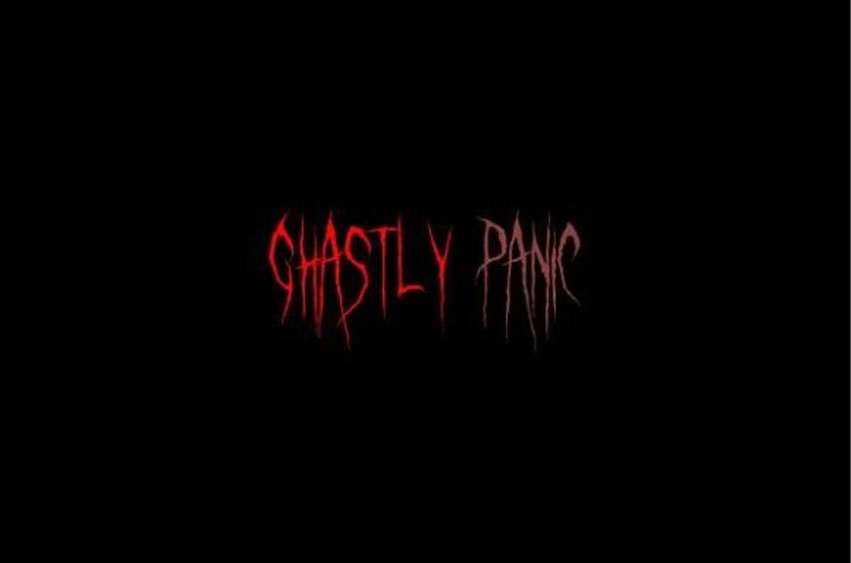
Ghastly Panic Font is a spooky, light weight display font.
The characters have different sizes and have pointy edges.
Ghastly Panic Font is a spooky, light weight display font.
The characters have different sizes and have pointy edges.